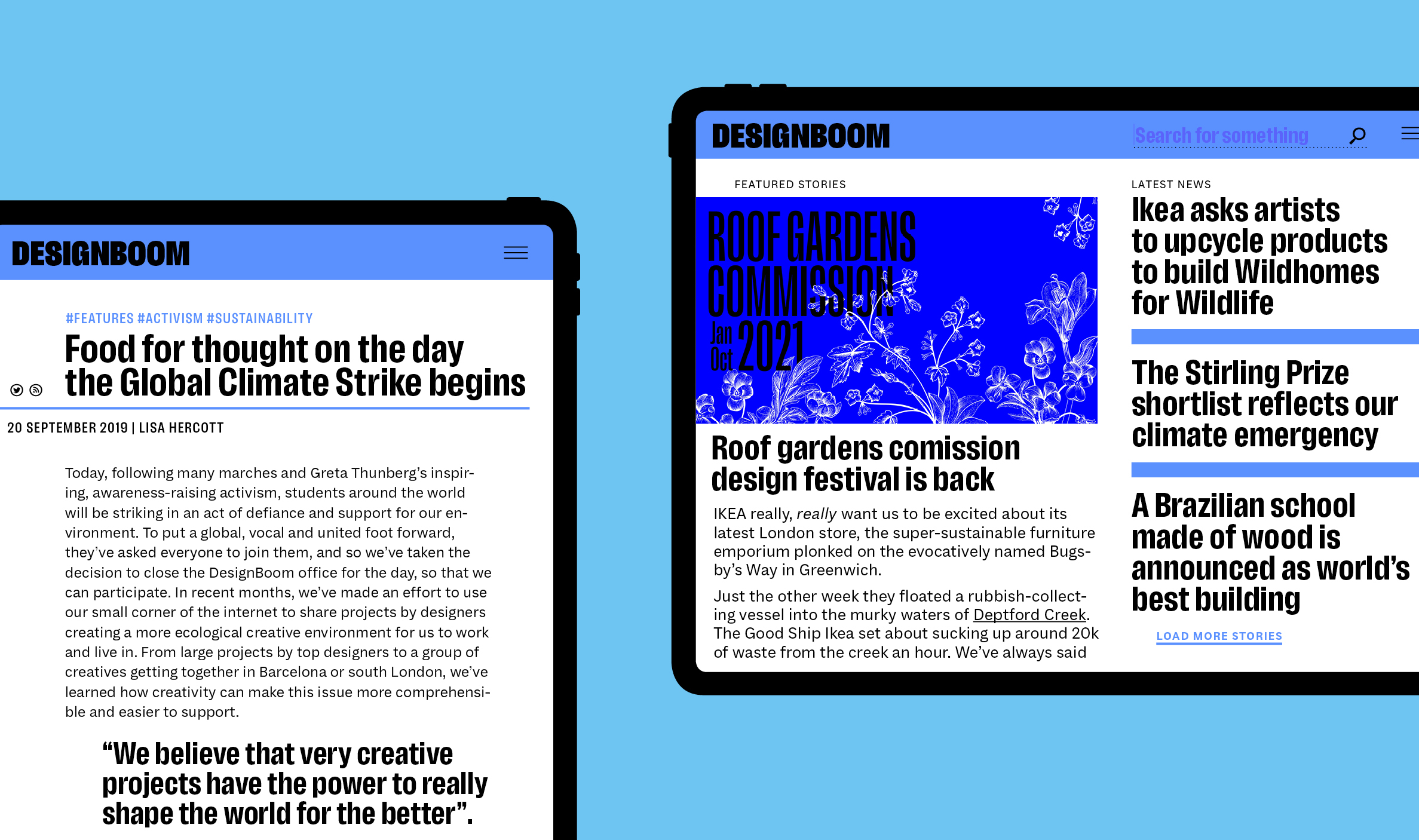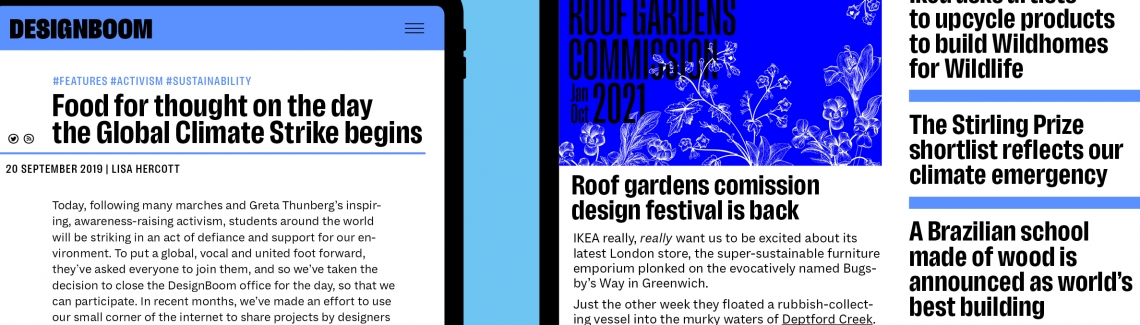
Lektorat in motion
Methodical in rationale and irrepressible in function, Lektorat’s 27 styles are the embodiment of editorial expression.
Lektorat is the sans family capable of setting a full range of editorial publishing. Its six concentrated text styles speak directly to readers, and its three display widths equal 21 fonts capable of informing, persuading, and entertaining en masse. The Lektorat typeface was forged with a steel spine for pixel and print publishing. It unwaveringly informs, convincingly persuades, and aesthetically entertains when the tone calls for it. Its sans serif forms expand in methodical ways until the heaviest two weights close in, highlighting its irrepressible usefulness to the very end. Lektorat is an example of how much we relish entering into an agreed battle of persuasion — one which both sides actually enjoy.